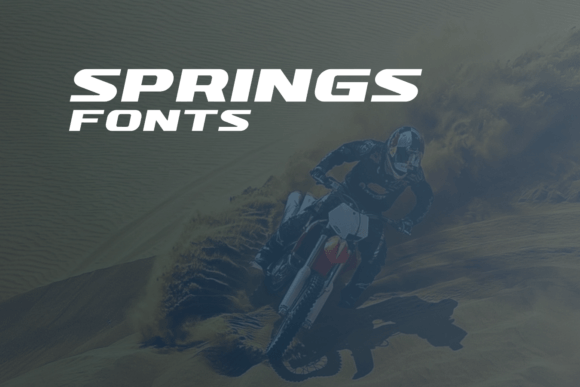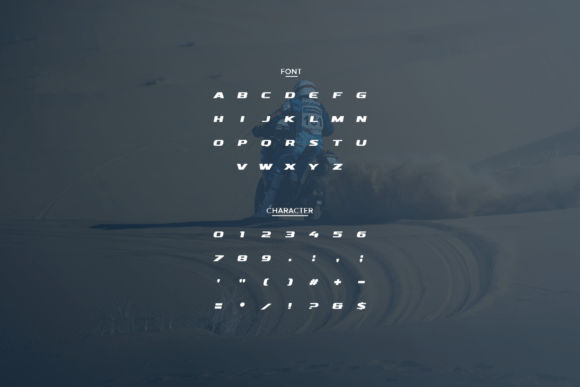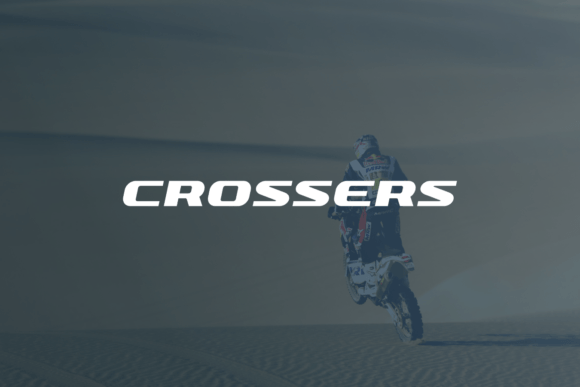
Introduction to Croshed Font
Croshed is a thick-lettered, modern sans-serif font.
Why Choose Croshed Font?
Croshed Font offers exceptional quality and versatility, making it a valuable addition to your design toolkit. Whether you’re creating for personal projects or commercial use, Croshed Font delivers professional results.